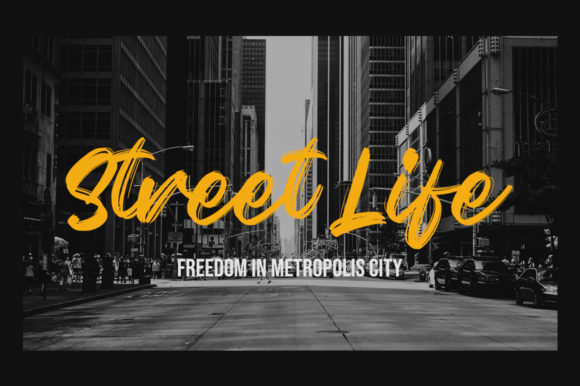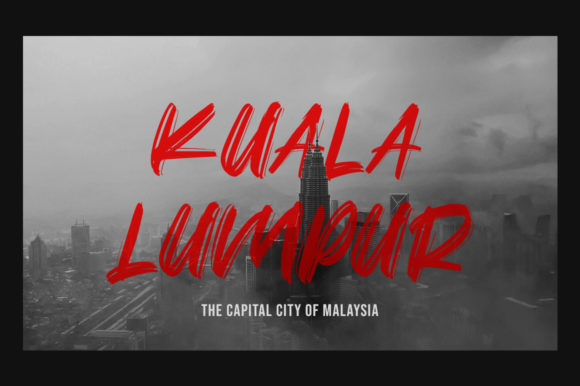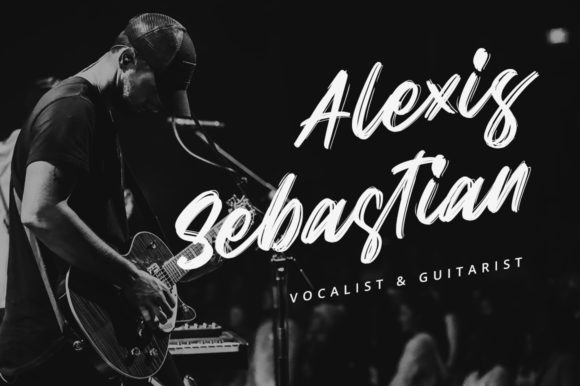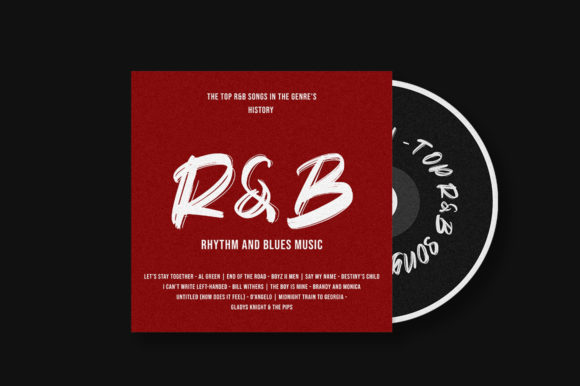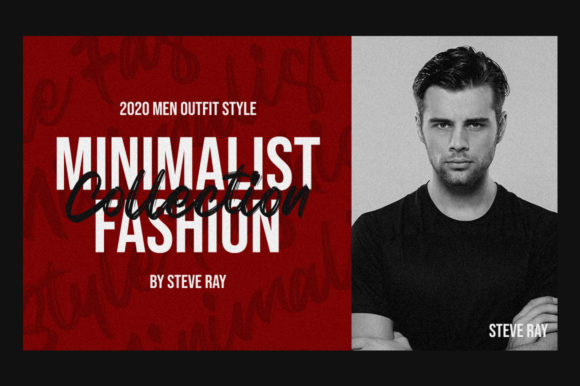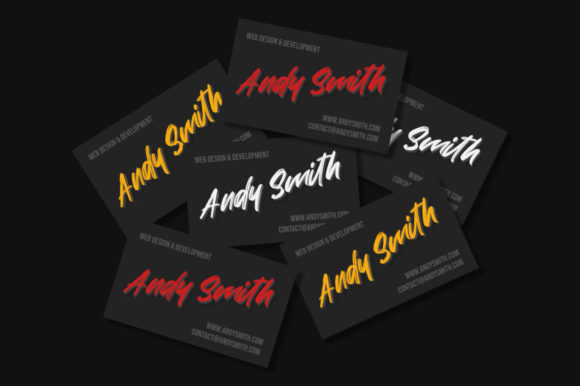
Citizen Brush Font: Elevate Your Designs with Elegance and Sophistication
Are you on the hunt for a font that exudes elegance and sophistication? Look no further than the Citizen Brush Font. This stunning handwritten font is designed to add a touch of refinement to your favorite projects, making it perfect for designers and crafters alike. With its flowing lines and incredibly distinct style, Citizen Brush is sure to capture your heart and inspire your creativity.
The Characteristics of Citizen Brush Font
Citizen Brush Font is a masterpiece of typographic design, boasting a range of characteristics that set it apart from other fonts. Here are just a few of the features that make this font so special:
- Elegant Touch: Citizen Brush Font is described by an elegant touch, making it perfect for designs that require a level of sophistication and refinement.
- Flowing Lines: The font’s flowing lines create a sense of movement and fluidity, adding a dynamic touch to your designs.
- Handwritten Style: Citizen Brush Font is a handwritten font, giving it a personal and unique feel that’s perfect for adding a touch of personality to your designs.
- Timeless Style: The font’s classic style ensures that it will remain timeless and relevant, even as design trends come and go.
Uses for Citizen Brush Font
Citizen Brush Font is an incredibly versatile font that can be used in a wide range of design projects. Here are just a few ideas to get you started:
- Logo Design: Use Citizen Brush Font to create a stunning logo that exudes elegance and sophistication.
- Stationery: Add a touch of refinement to your stationery designs, including business cards, letterheads, and more.
- Packaging: Use Citizen Brush Font to create eye-catching packaging designs that stand out on store shelves.
- Digital Design: Citizen Brush Font is perfect for digital designs, including website headers, social media graphics, and more.
Why Choose Citizen Brush Font?
With so many fonts to choose from, why should you choose Citizen Brush Font? Here are just a few reasons why this font stands out from the crowd:
- Unique Style: Citizen Brush Font has an incredibly distinct style that’s sure to set your designs apart.
- Ease of Use: The font is easy to use and pairs well with a range of other fonts, making it perfect for designers of all levels.
- High-Quality Design: Citizen Brush Font is designed to the highest standards, ensuring that it looks great in any design.
- Timeless Appeal: The font’s classic style ensures that it will remain timeless and relevant, even as design trends come and go.
Tips for Using Citizen Brush Font
Here are a few tips for getting the most out of Citizen Brush Font:
- Use it Sparingly: Citizen Brush Font is a statement font, so use it sparingly to add impact to your designs.
- Pair it with Other Fonts: Experiment with pairing Citizen Brush Font with other fonts to create a unique and eye-catching design.
In conclusion, Citizen Brush Font is a stunning handwritten font that’s perfect for designers and crafters looking to add a touch of elegance and sophistication to their designs. With its flowing lines, elegant touch, and timeless style, this font is sure to capture your heart and inspire your creativity. So why wait? Download Citizen Brush Font today and start creating spectacular designs!